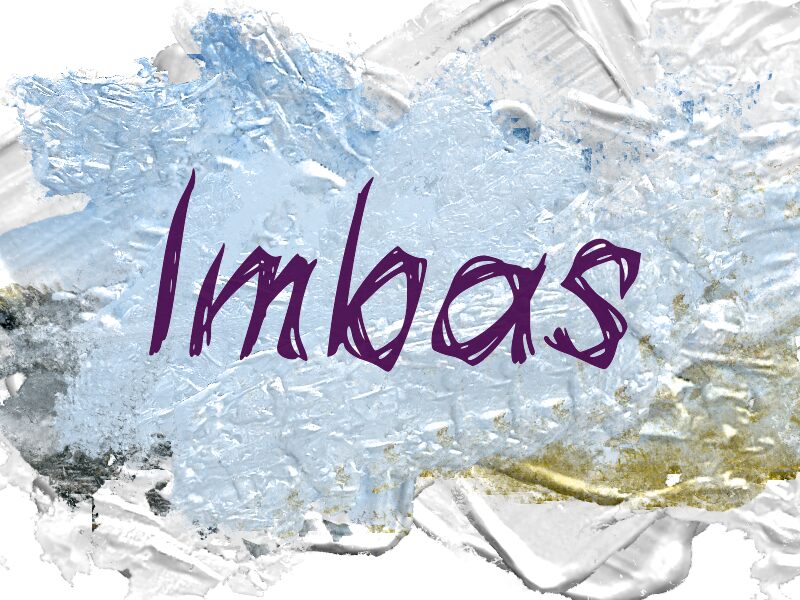
i Imbas font by wep is a free font with an organic vibe and energetic appearance. The letter shapes are edgy and expressive, exuding a special contemporary eclectic style. Despite its chaotic look, this type is as precise as it gets, making it perfect for a large set of design projects. The font contains only 13 letters from a to m in both upper and lowercase forms which can still be combined in creative ways.
Even with the missing letters and numbers, the font remains very useful in projects like logos, branding, headlines, and posters. Combine it with simple fonts for wedding invitations, certificates, business cards, and stationery design. Layouts like websites, mobile apps, digital ads, and social media front covers are also included in the possible uses of i Imbas.
Imbas is a versatile and stylish free font that caters to a wide range of design projects. Ideal for both personal and commercial use, this font offers a unique blend of modern aesthetics and classic charm. Whether you're creating a logo, poster, or website, Imbas provides the perfect touch to elevate your designs.